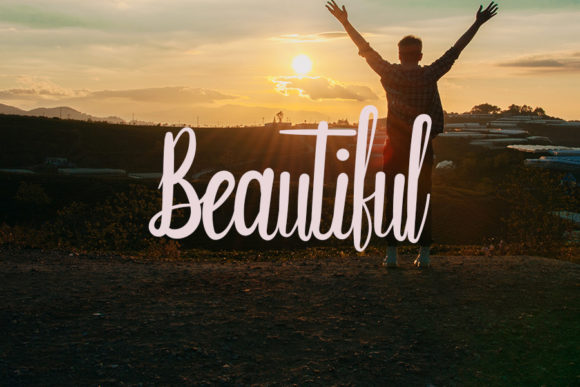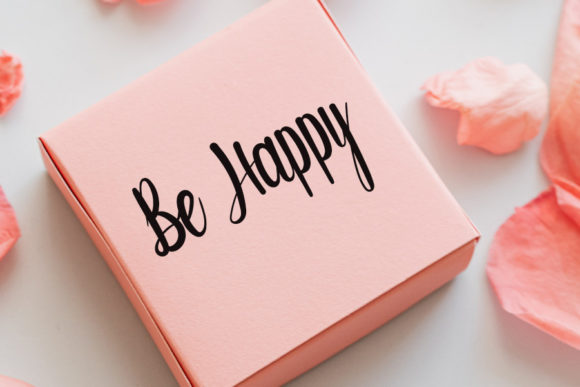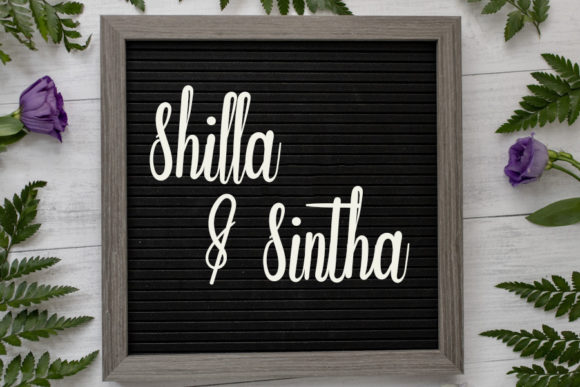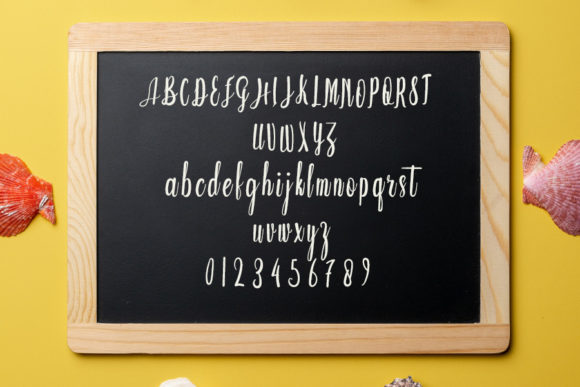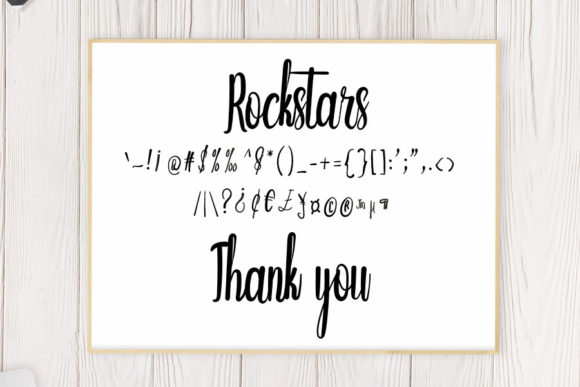
Introduction to Rockstars Font
Remember that moment when you’re working on a design project and you just can’t seem to find the perfect font to bring it all together? You’ve got the colors, the layout, and the concept, but something’s missing – that special something that makes your design truly stand out. That’s where the Rockstars Font comes in, a beautiful and versatile handwritten font that adds a touch of elegance and sophistication to any creative project.
As a valuable design resource, the Rockstars Font is perfect for designers who want to add a high-quality, unique feel to their work. With its stunning impact and lovely spark, it’s no wonder why designers love this font. And the best part? It’s available for a free download, making it an accessible addition to any design arsenal. Whether you’re working on a project with a transparent background or a more complex design, the Rockstars Font is sure to elevate your work and leave a lasting impression.
Key Features of Rockstars Font
- High-quality font designed for creative projects, ideal for music, art, and entertainment themes.
- Unique, hand-drawn design elements with a transparent background, allowing for easy layering and customization.
- Includes a range of font styles, from bold and edgy to elegant and sophisticated, to suit various design needs.
- Resolution-independent design ensures crisp, clear rendering at any size, making it perfect for large-scale displays or small text.
Honest Review: Rockstars Font
I recently came across the Rockstars Font and was eager to put it to the test in one of my creative projects. As a designer, I appreciate high-quality design resources that can elevate my work, and this font did not disappoint. The Rockstars Font is available for a free download, which is always a bonus.
One of the standout features of this font is its versatility. I used it for a logo design and was impressed with how well it paired with the transparent background. The font’s sleek and modern design makes it perfect for a variety of creative projects.
- High-quality design that’s perfect for logos and headings
- Versatile and suitable for various creative projects
- The font may not be suitable for body text due to its bold and playful nature
- Some users may find the font too trendy and may not be suitable for all designs
Overall, I’m impressed with the Rockstars Font and would recommend it to designers looking for a high-quality, free design resource. Just be aware of its limitations and use it accordingly in your creative projects.
Tips for Getting the Most Out of Rockstars Font
Experiment with different font sizes and styles to create a unique look. Use the font in combination with other design elements, such as images or shapes, to create a visually appealing design. Consider using a transparent background to make the font stand out.
Common Use Cases for Rockstars Font
The Rockstars Font is ideal for creative projects, such as designing a logo, creating a presentation, or making a document. Its high quality and free download make it a great choice for designers and non-designers alike.